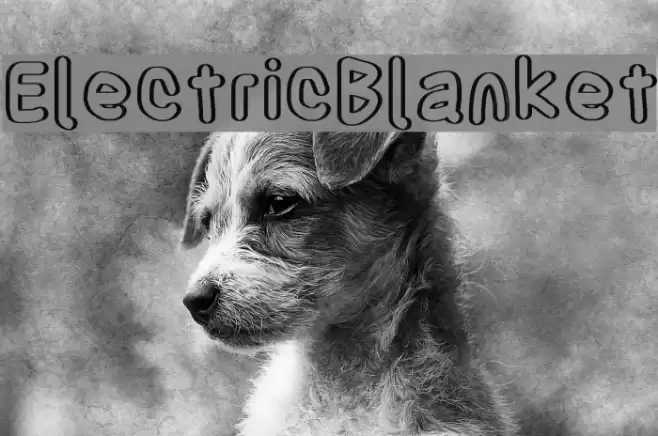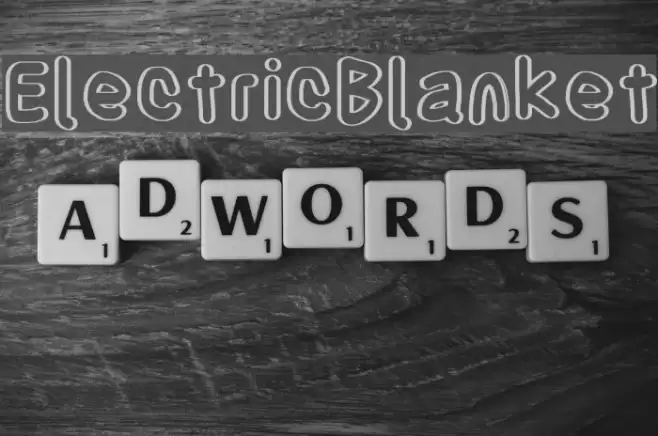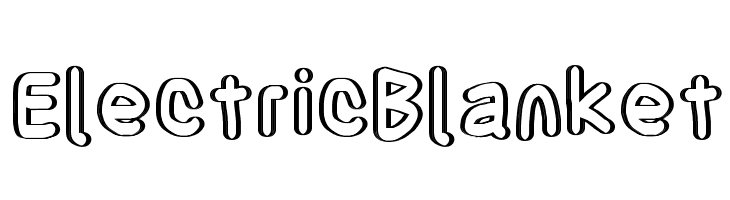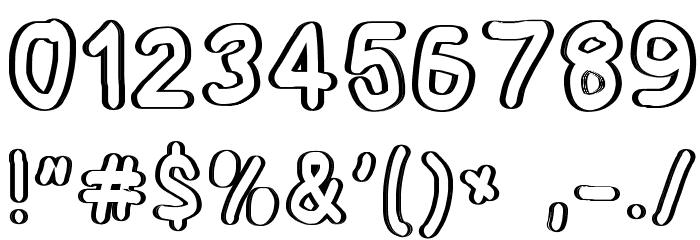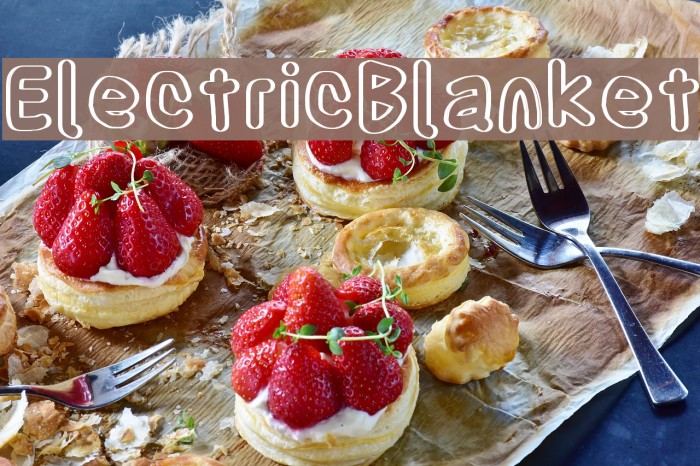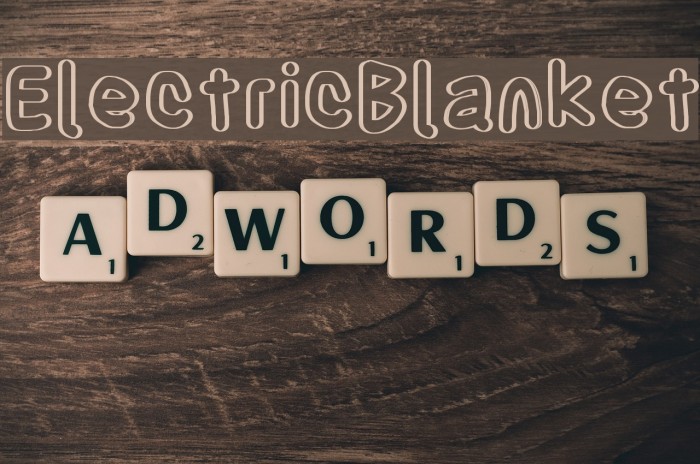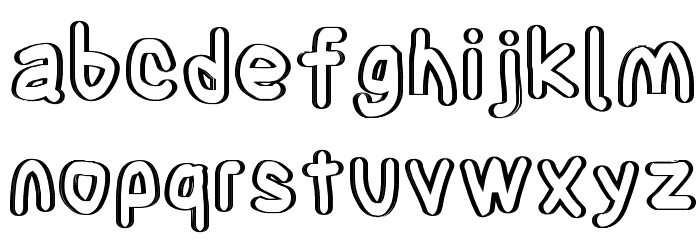
ElectricBlanket Font
ElectricBlanket Description
This playful and bold font features a unique, hand-drawn style with a thick outline that gives each character a distinct, cartoonish appearance. The letters are rounded and slightly irregular, adding to the whimsical and informal feel. The uppercase and lowercase letters maintain a consistent style, while the numbers and special characters are equally expressive, making the font versatile for creative projects. The overall design is eye-catching and fun, perfect for adding a touch of personality to any text.
A playful, hand-drawn font with bold outlines and a cartoonish style from Uncategorized fonts.
- Proposed Projects: Ideal for children's books, comic strips, playful branding, and creative posters.
- Overall Style: Playful, Cartoonish